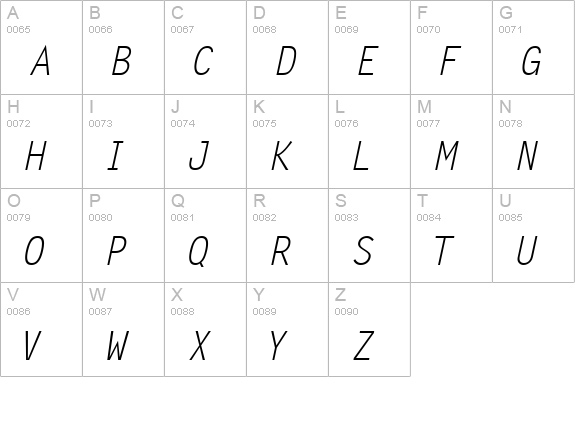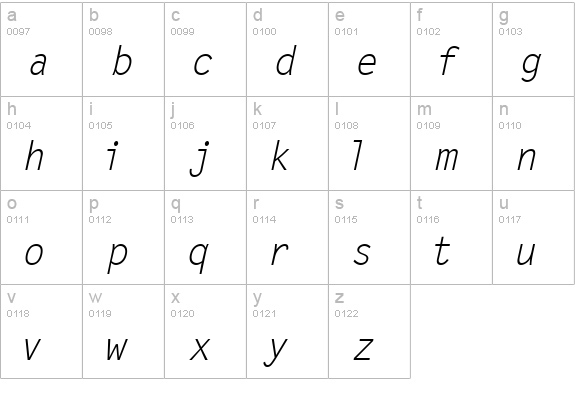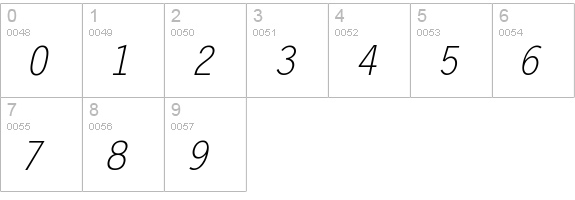
Microfine SSi Italic Font Details
Microfine SSi Italic is a distinctive, italic variant in the Microfine typeface family \xE2\x80\x94 well suited to design and typography projects.
Microfine SSi Italic is a sleek and modern font that exudes elegance and sophistication. With its slender, delicate strokes and refined curves, this typeface is perfect for adding a touch of finesse to any design project. The italic style of Microfine SSi Italic adds a dynamic and contemporary flair, making it ideal for use in branding, editorial design, and creative projects. What's even better is that Microfine SSi Italic is available for free download at FontsMarket.com. This means you can easily access this stylish font and use it for personal or commercial projects without any cost. Don't miss out on the opportunity to elevate your designs with the timeless beauty of Microfine SSi Italic - download it today and let your creativity shine!